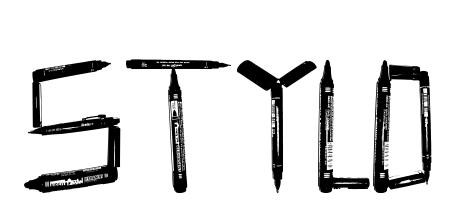
Stylo
By I Like Fonts
Stylo is a quirky, hand-drawn font. Its blocky, slightly uneven letters possess a charmingly imperfect quality. The serifs are abrupt and geometric, contrasting with the slightly rounded forms of some letters. It's a font that feels both modern and nostalgic, suggesting a playful, handmade aesthetic. The overall impression is one of friendly informality.